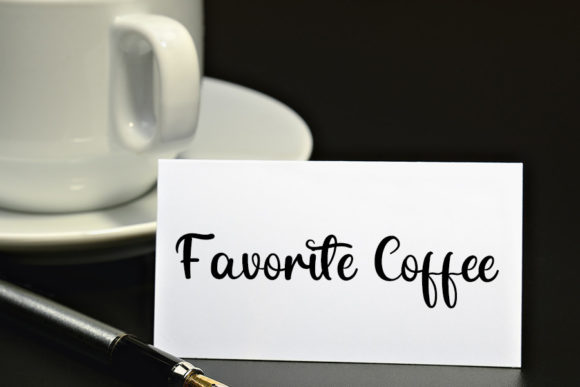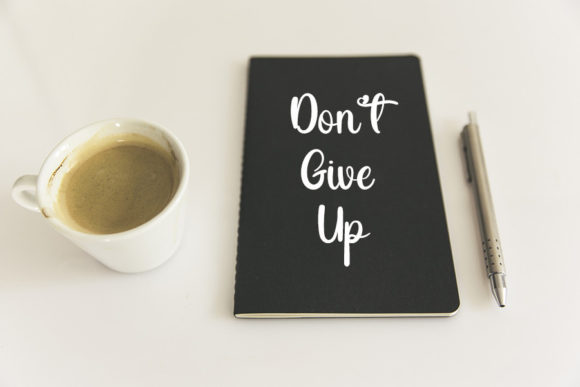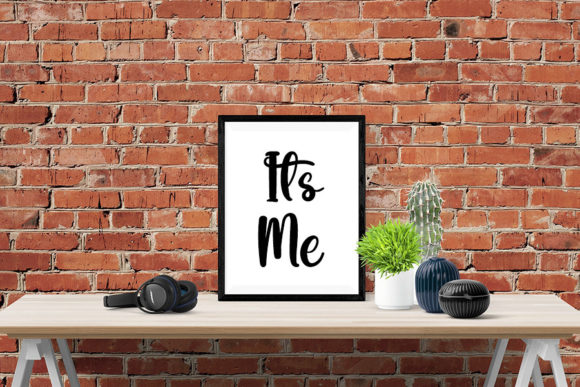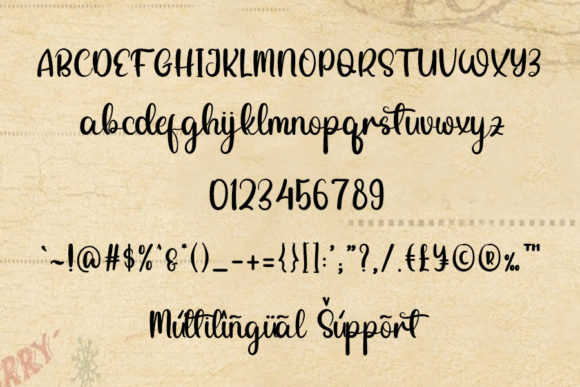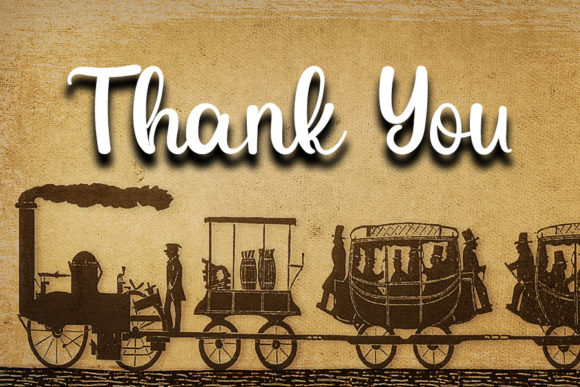
The Coffeehouse Font: A Timeless Classic for Modern Designs
I’ll never forget the design moment that led me to discover the Coffeehouse font. I was working on a branding project for a trendy coffee shop, and I was struggling to find the perfect font that captured the warmth and sophistication of their brand. The client was adamant that they wanted something stylish, yet approachable – not too thin, not too thick, but just right. After hours of scouring font libraries and testing various options, I stumbled upon Coffeehouse, and it was love at first sight! ✨
So, what makes Coffeehouse so special? Here are a few things I love about this beautiful font:
- ✨ Balanced and varied: The font has a perfect balance of thick and thin strokes, making it easy to read and visually appealing.
- ✅ Contemporary atmosphere: Coffeehouse has a modern feel that works well for branding, packaging, and advertising projects.
- 💫 Impeccable form: The font is inspired by timeless classic calligraphy, giving it an air of sophistication and elegance.
Of course, no font is perfect, and Coffeehouse has a few minor quirks:
- 🤔 Limited multilingual support: While Coffeehouse supports several languages, it may not be the best choice for projects that require a wide range of linguistic support.
- ⚠️ Some glyphs may require manual adjustment: Depending on the design, you may need to adjust certain glyphs to ensure they fit perfectly with the rest of the text.
- Experiment with OpenType features, such as Stylistic Alternates and Swashes, to add personality to your text.
- Explore the Glyphs panel to access additional characters, such as ligatures and stylistic alternates.
Coffeehouse was designed with the goal of creating a timeless, classic font that would evoke the warmth and sophistication of a traditional coffee shop. The designer drew inspiration from classic calligraphy and aimed to create a font that was both elegant and approachable.
| What is the best use for Coffeehouse? | Coffeehouse is perfect for branding, packaging, and advertising projects that require a stylish, yet approachable font. |
| Is Coffeehouse suitable for body text? | While Coffeehouse is primarily designed for headings and titles, it can be used for body text in certain contexts, such as in magazines or blogs. |
| Does Coffeehouse support multiple languages? | Coffeehouse supports several languages, but it may not be the best choice for projects that require a wide range of linguistic support. |